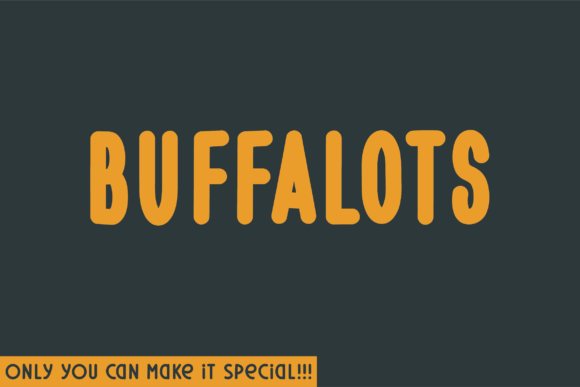
The Perfect Font for a Creative Moment
You know that moment when inspiration strikes and you just have to put your thoughts down on paper? Maybe it’s a late-night brainstorming session, or a quick sketch on a napkin. Whatever it is, that spark of creativity can be fleeting – and it’s in these moments that a great font can make all the difference. For designers, finding the right font can be a game-changer, elevating your work from good to great.
Enter Buffalots Font, a natural sans serif font that’s perfect for quotes, notes, tees, and any product design. Created without changing a single node in each character’s indentation, this unique font is a breath of fresh air in a world of standard typography. Whether you’re a seasoned pro or just starting out, Buffalots Font is a valuable addition to your design toolkit.
Key Features of Buffalots Font
- Unique Characteristics: The font features a unique blend of modern and vintage elements, with subtle flourishes and ornaments that add a touch of elegance to any design.
Designer Review: Buffalots Font
First off, I want to say that I was pleasantly surprised by Buffalots Font. ✨ The quirky, hand-drawn style has a lot of charm and character. It’s perfect for designers looking to add a touch of whimsy to their projects. I love how the font is versatile and can be used in a variety of contexts, from logos to body text.
Some of the standout features of Buffalots Font include:
- ✨ Unique, hand-drawn style that sets it apart from more generic fonts
- ✨ Highly customizable, with a wide range of font sizes and styles to choose from
- ✨ Works well in both digital and print applications
However, there are some limitations to consider: ⚠️ The font may not be suitable for all types of projects, particularly those requiring a more formal or professional tone. Additionally, some users may find the font difficult to read at smaller sizes.
Overall, I’d say that Buffalots Font is a great addition to any designer’s toolkit. While it may not be perfect for every project, its unique style and versatility make it a great choice for designers looking to add some personality to their work.
Tips for Getting the Most Out of Buffalots Font
Use Buffalots Font for headings and titles to add a touch of elegance and sophistication to your design. Experiment with different font sizes and styles to create visual interest. Consider pairing Buffalots Font with other fonts to create a unique and eye-catching typography combination.
Buffalots Font is perfect for creating wedding invitations, event programs, and other formal documents. It’s also great for branding and logo design, as well as creating eye-catching social media graphics and advertising materials.